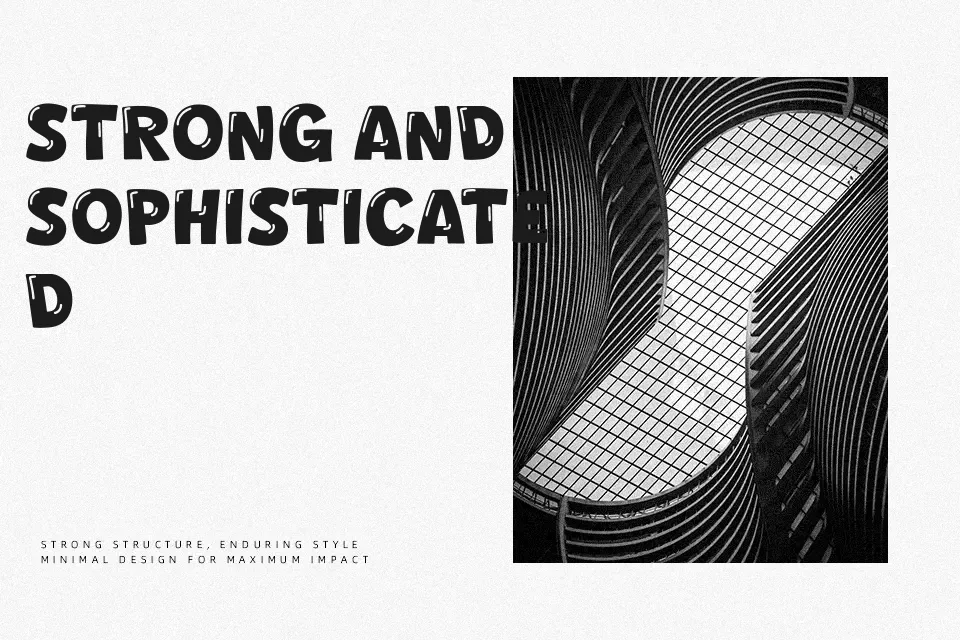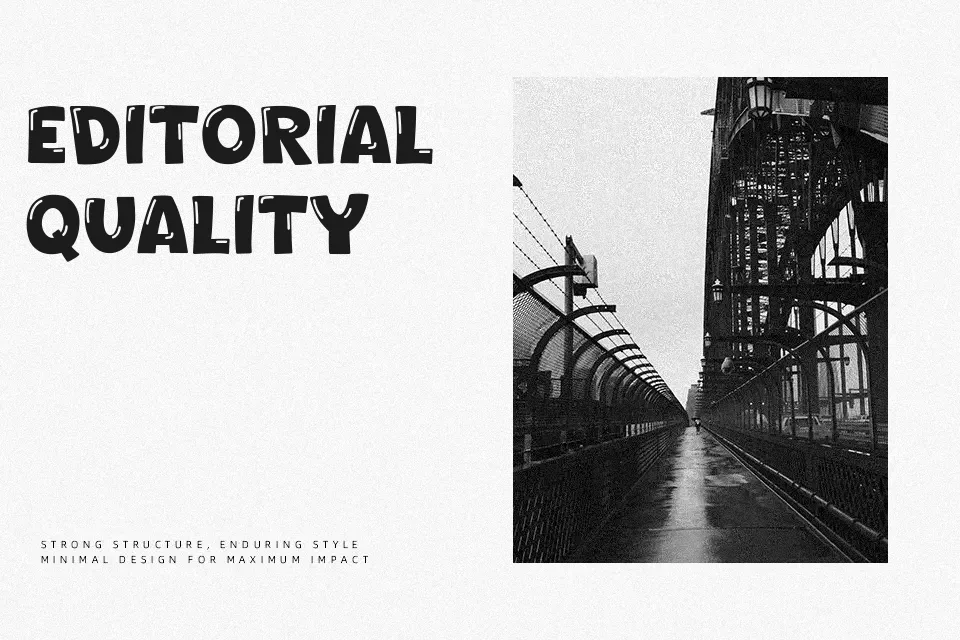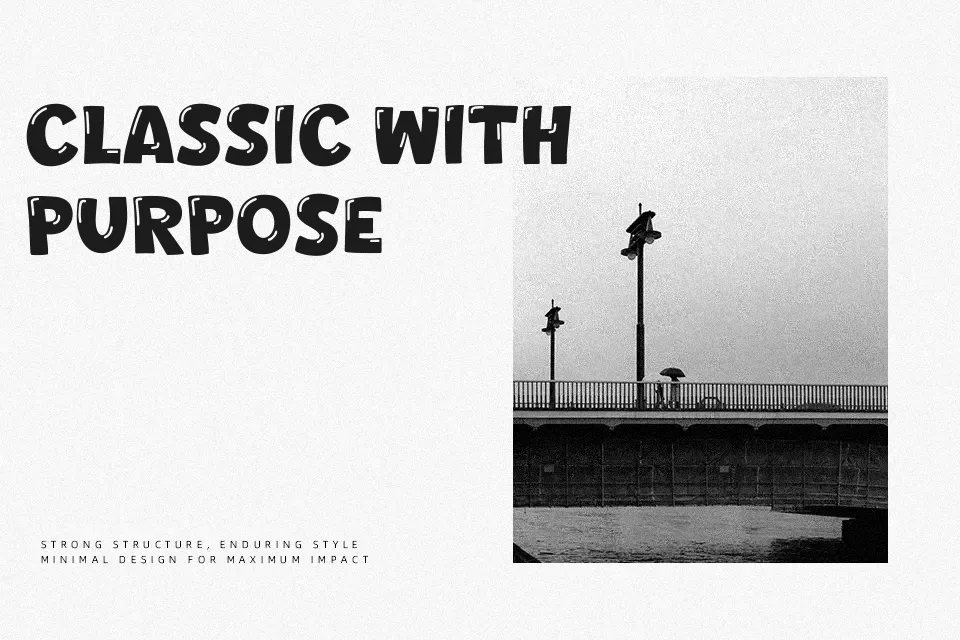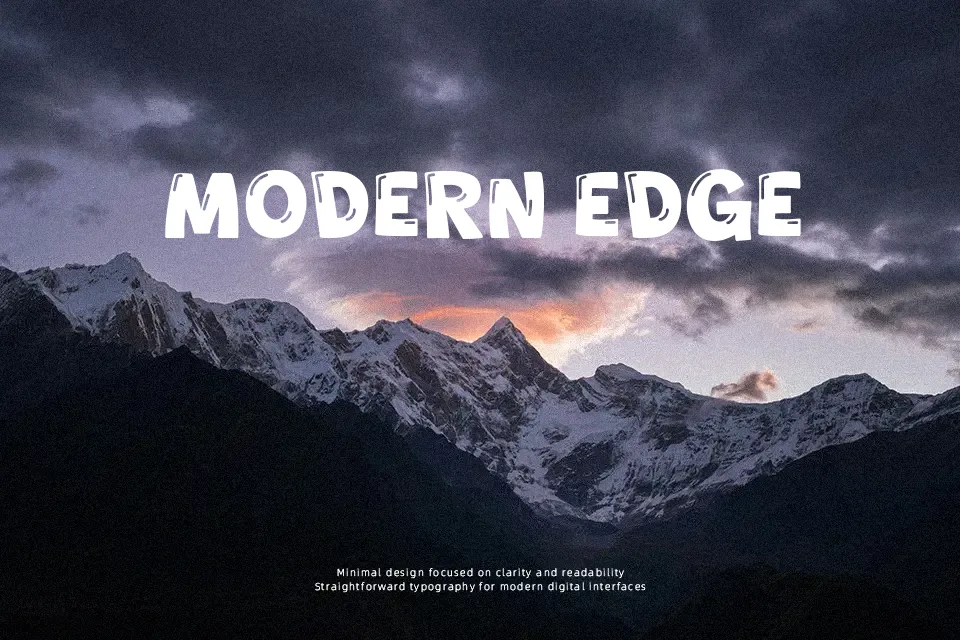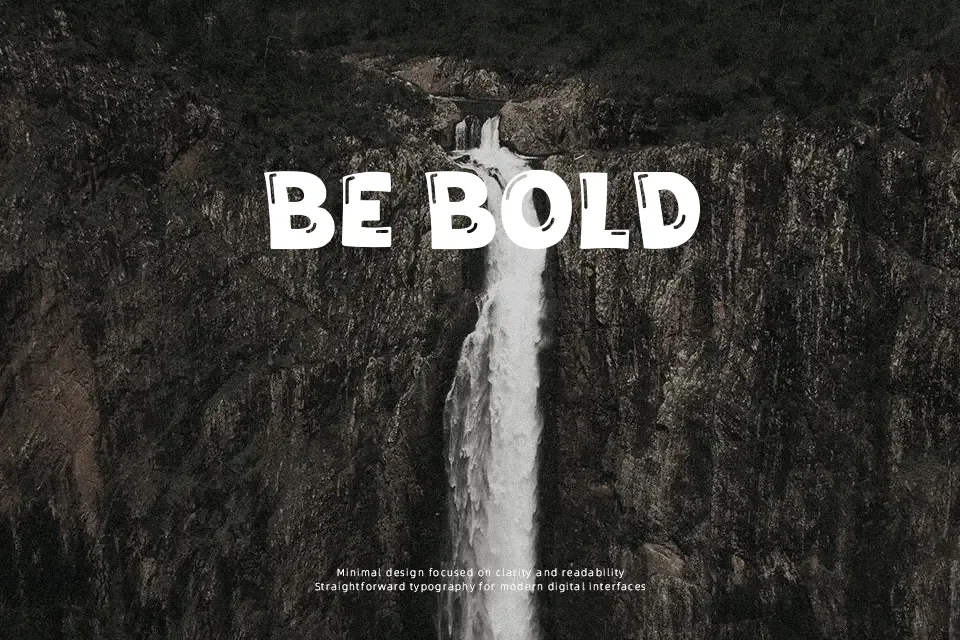
Truecat Font
Designed by Khurasan
Truecat Font is distinguished by its hefty, organic letterforms and softened terminals that establish a relaxed, cartoon-inspired presence. Each character maintains consistent stroke thickness with minimal contrast, resting on stable baselines with generous proportional width. The character spacing is moderately compact yet sufficiently open to prevent adjacent letter collisions in display settings. While the typeface delivers immediate visual prominence across comic strips, merchandise graphics, and school festival banners, the substantial stroke bulk severely restricts interior counter space. Consequently, the design becomes difficult to decipher in extended body paragraphs or dense interface labels, performing with optimal clarity exclusively when deployed for isolated headlines.
Best For: children’s book titles, animated series titling, toy packaging, comic book headlines
Not Ideal For: continuous book paragraphs, technical documentation, mobile interface text, dense spreadsheet tables
Perfect for advertising, headline, and kids, with a bold and cartoon style.